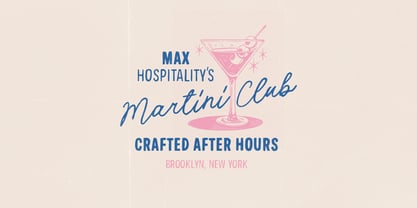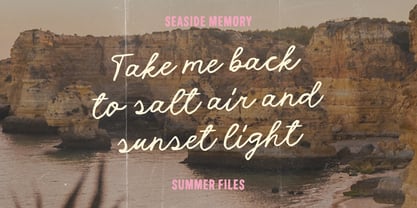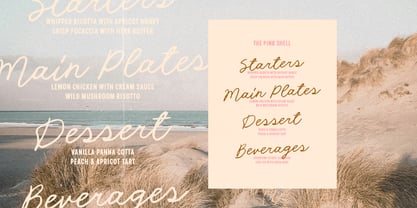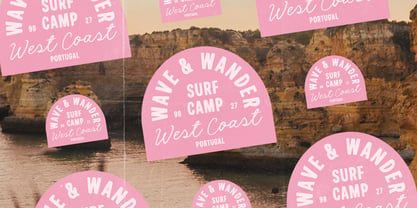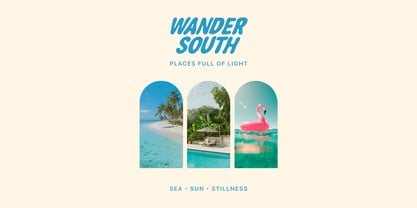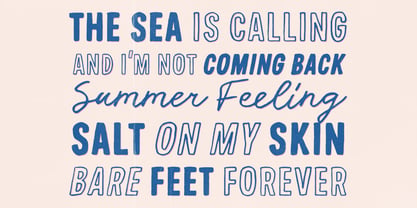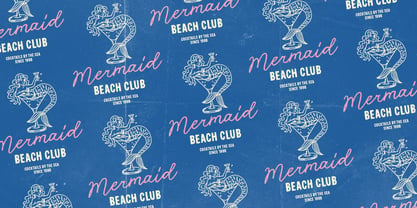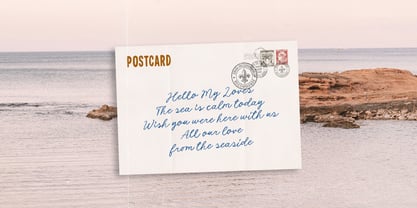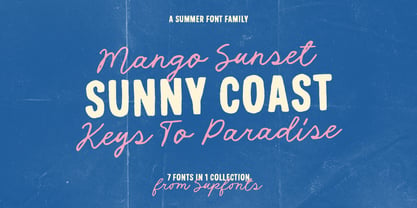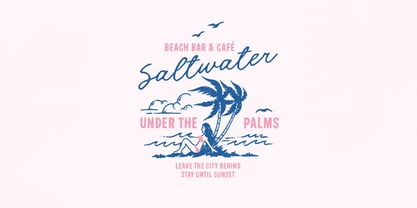
Mango Sunset
Mango Sunset is a playful retro summer font family made for sunny branding, beach café menus, cocktail posters, packaging, social media graphics, invitations, merch, and vacation-inspired designs.
The pack includes 7 fonts
• Bold
• Bold Slanted
• Outline
• Outline Slanted
• Script
• Thin
• Thin Slanted
Mix the bold display styles with the handwritten script to create warm, nostalgic layouts with a coastal, vintage, carefree feel. Perfect for creative market designers working on feminine brands, summer campaigns, lifestyle products, cafés, bars, events, and social media visuals.